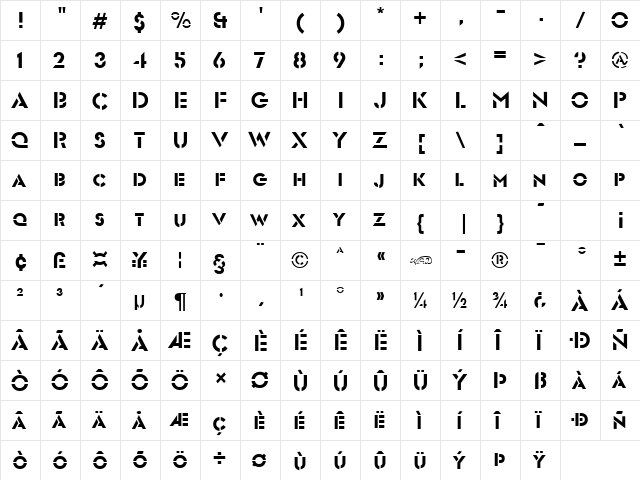
Futurist-Stencil normal
Design Context for Futurist-Stencil Typeface
Futurist-Stencil has a distinctly futuristic character, with geometric precision and clean angles that feel at home in technology, gaming, and sci-fi contexts.
Pro Tip: Use Futurist-Stencil in combination with a neutral sans for body text. Let it define the brand voice in headlines while keeping reading comfortable elsewhere.